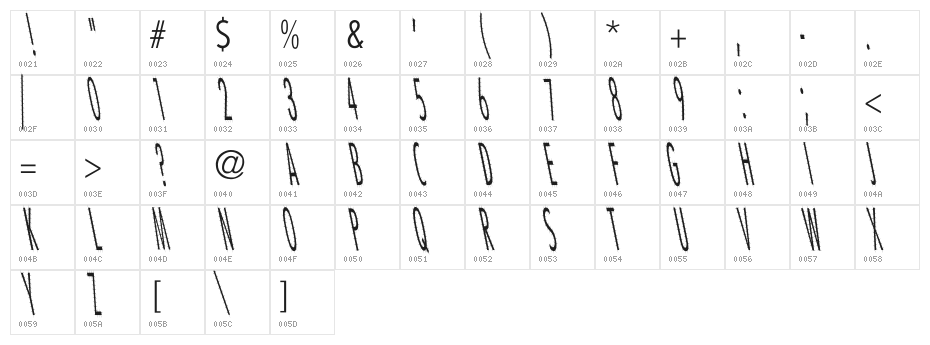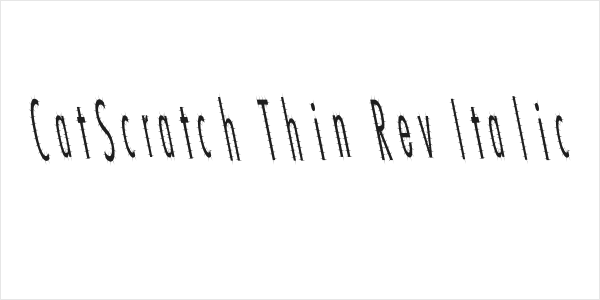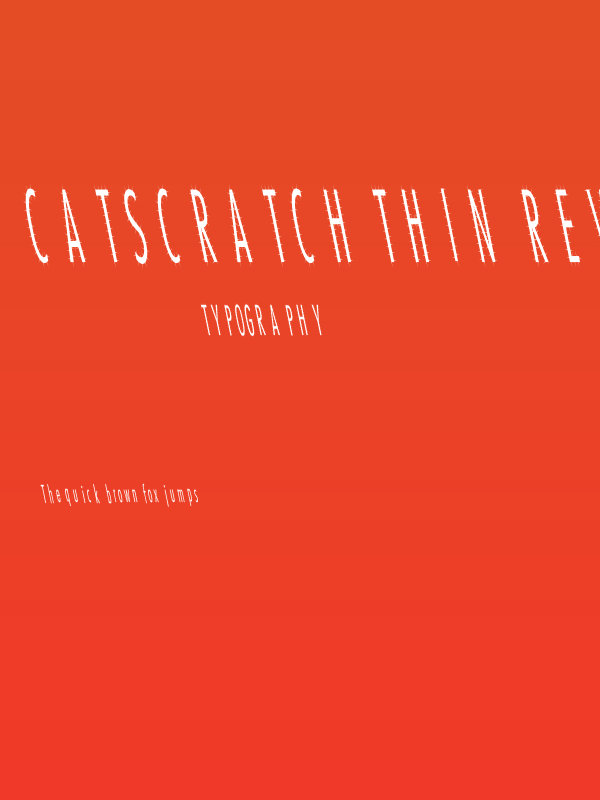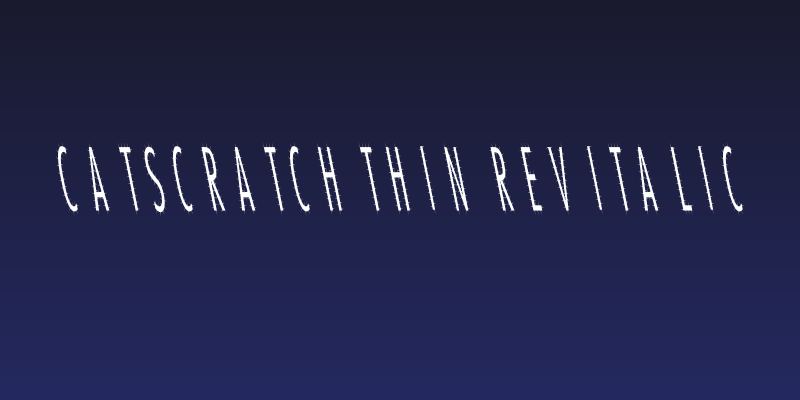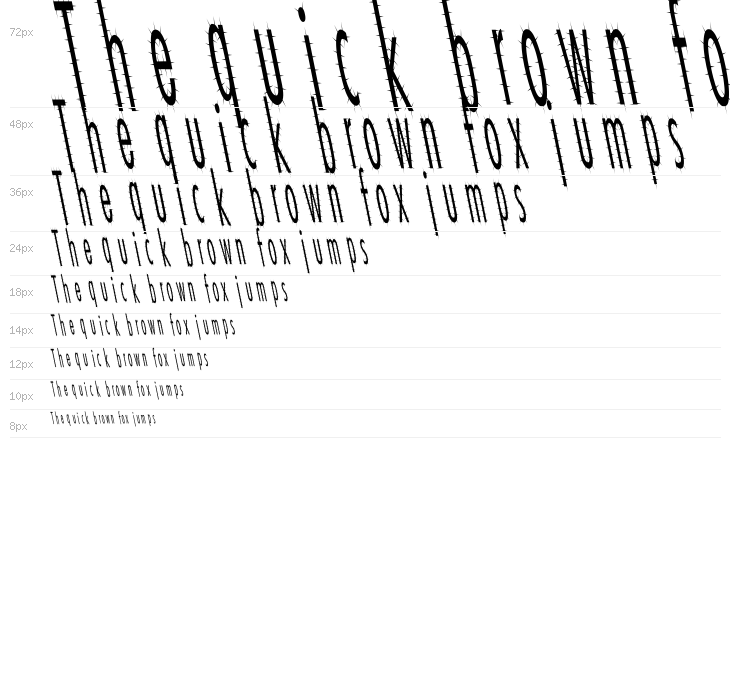
CatScratch Thin Rev Italic Font
CatScratch Thin Rev Italic Description
This font features a unique and edgy design with a scratchy, hand-drawn appearance. The characters are elongated and slightly tilted, giving them a dynamic and energetic feel. The thin strokes are accentuated by jagged edges, creating a sense of movement and spontaneity. This style is reminiscent of a rebellious or punk aesthetic, making it stand out in any design. The uppercase and lowercase letters maintain a consistent style, while the numbers and special characters complement the overall look. The font's distinctiveness makes it suitable for projects that aim to convey creativity and individuality.
| Overall Style | Rebellious, Punk |
| Use Case | Logos, Headlines, Artistic designs |
| Proposed Projects | Ideal for album covers, posters, graffiti art, and edgy branding projects. |